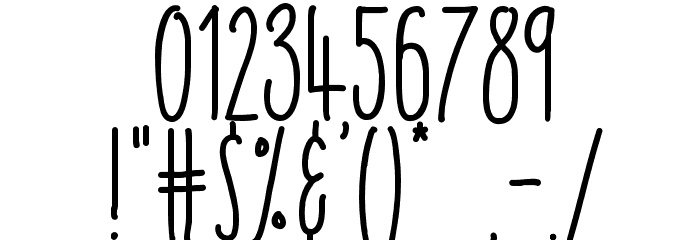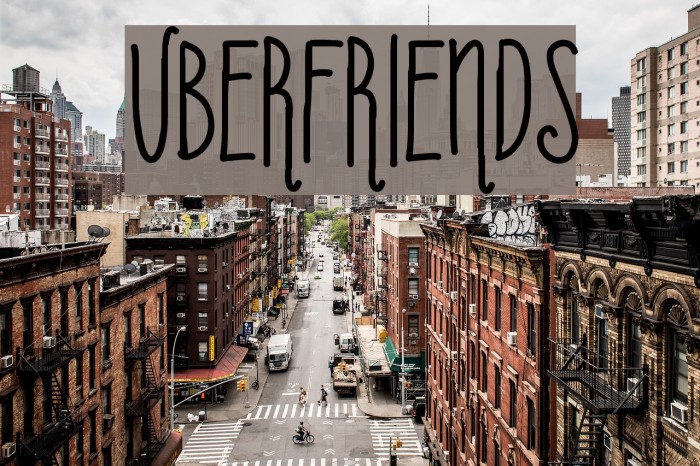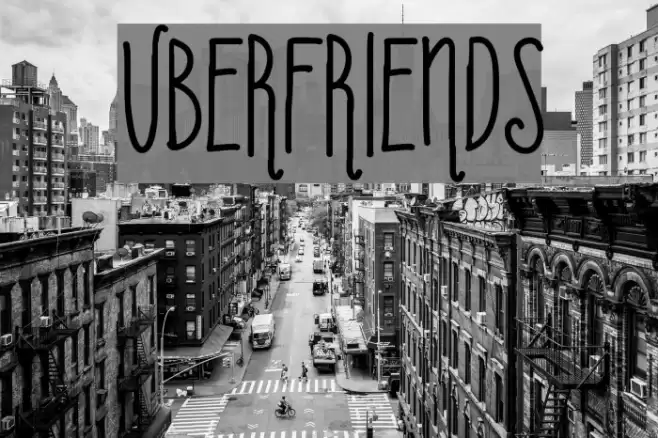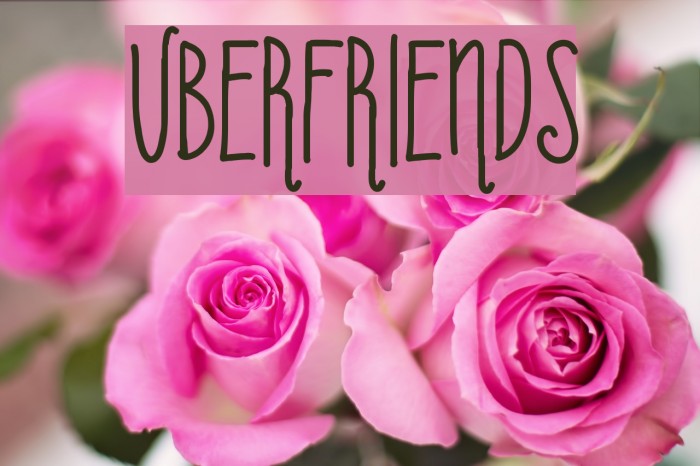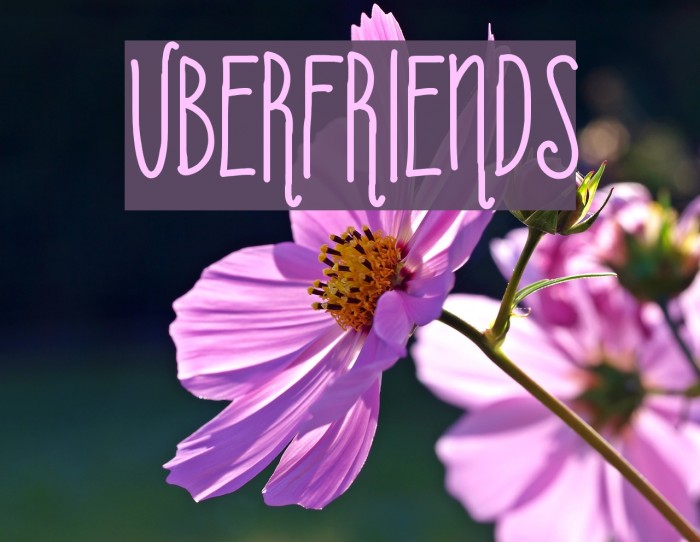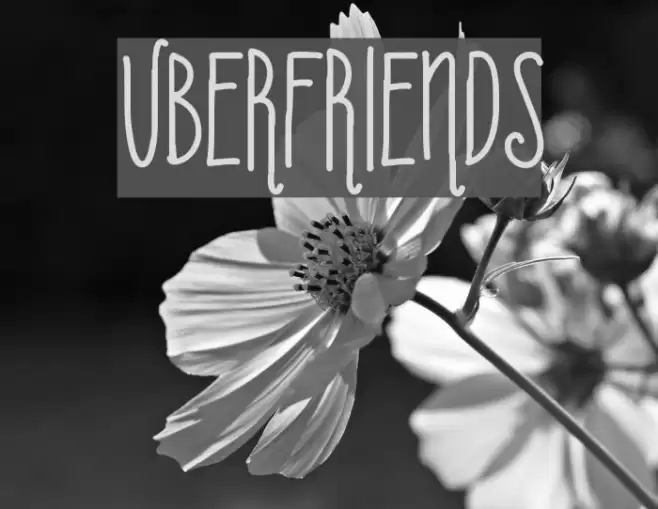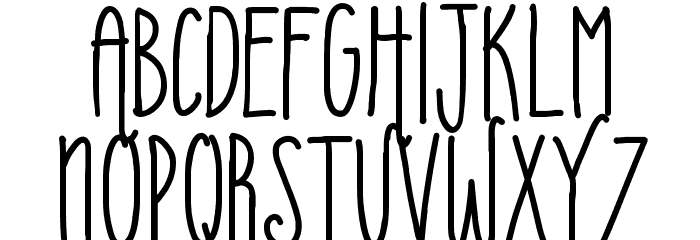
Uberfriends Font
This font features a playful and whimsical style with tall, narrow characters that have a hand-drawn appearance. The strokes are consistent in width, giving it a uniform look, while the rounded edges add a friendly and approachable feel. The uppercase and lowercase letters maintain a cohesive design, with slight variations that enhance its casual aesthetic. Numbers and special characters are crafted with the same attention to detail, ensuring readability and charm. This font's unique personality makes it suitable for creative projects that require a touch of fun and informality.
A playful, hand-drawn font with tall, narrow characters and a whimsical style.
• Proposed Projects: Ideal for children's books, greeting cards, playful branding, and creative posters.